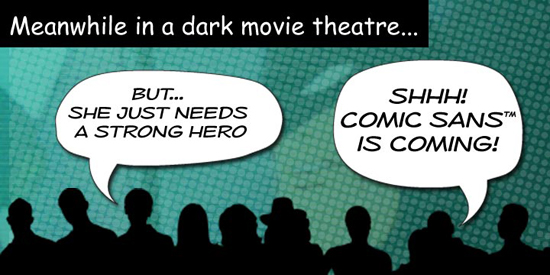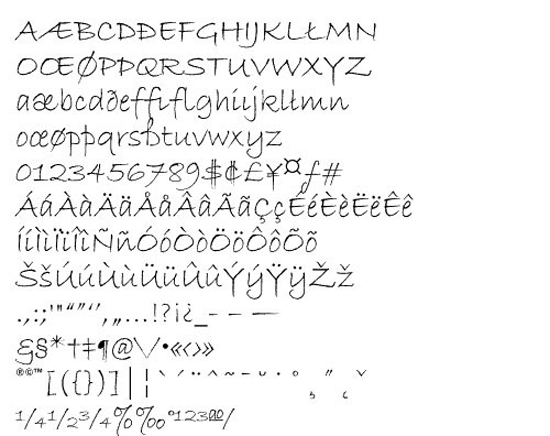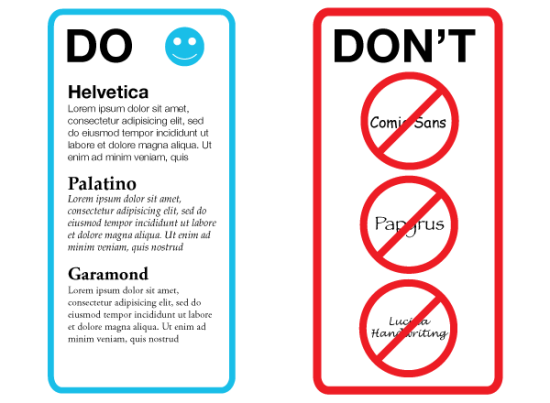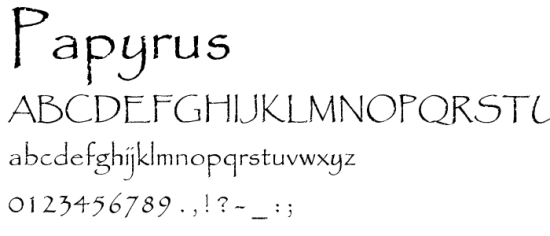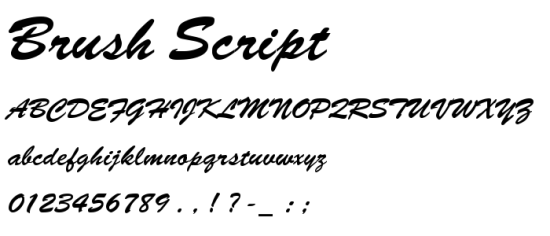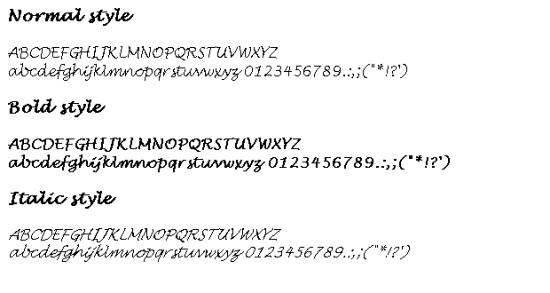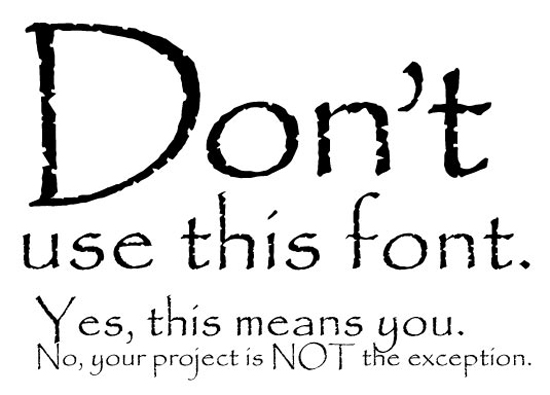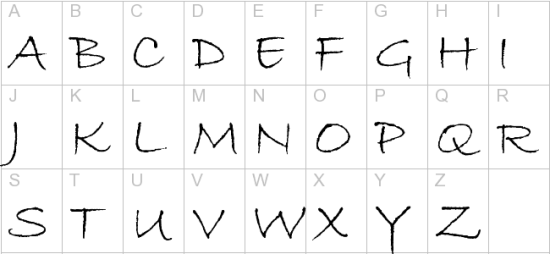
The Least Appropriate Fonts in Web Design
TweetFonts are a surprisingly tricky aspect of web design. This seemingly small choice has the power to make or break your website when it comes to giving off an aura of professionalism and quality. Unfortunately, many web designers fall victim to using popular fonts that have overstayed their welcome in the world of design.
This happens simply because they’re used to seeing them or because they buy into the belief that because others have used them so prolifically they should stick to “what works”. However, this couldn’t be farther from the truth. When designing your website be wary of these popular fonts that are actually some of the least appropriate ones for web design:
Comic Sans
Poor Comic Sans doesn’t stand a chance in the world of fonts and is largely referred to as the worst font of all time. Originally designed for comic books (like its name implies), it has become so hackneyed that the mere mention of it makes many designers shudder. Unless you’re a teacher or a child, Comic Sans should be avoided at all costs. The childish feel does nothing positive for websites.
Bradley Hand
The problem with Bradley Hand is that while it’s made to mimic actual handwriting, it still comes off looking like a font. This immediately retracts from the attempted authenticity of the font, making it one to avoid. You don’t want to make your viewers feel like you’re trying to put one over on them, which is exactly what Bradley Hand is doing.
Papyrus
Papyrus is a strange font that channels a very Egyptian feel that no business can effectively use, despite many widespread efforts. Also, people seem to be overdoing it to the max with this font, which just further solidifies that it should be avoided. Add in that it really isn’t that visually appealing or easily readable and you have a recipe for design disaster.
Brush Script
50 years ago this was the “it” font. But where Brush Script once served its users well, it now has fallen victim to the times and just looks outdated and old. If you have to go with a cursive-style font, pick one that has a bit more of a modern vibe to it.
Lucida Handwriting
When your goal is coming across as professional and high caliber, using handwriting fonts is not the way to go. And yet people still defer to Lucida Handwriting time and time again, despite the ironic fact that the more text typed in it, the more illegible it becomes.![]()
When choosing fonts for web design, don’t get trapped in the idea of using fonts that attempt to mimic handwriting – which is never really successful – or fonts that have become so overwhelmingly overused, that you are likely to see them on every website, menu, or flyer that you come across.
Stick with fonts that are easily readable and not a visual attack on the eyes of your audience.
While Comic Sans are blamed to be the one of the worst fonts there are still many people who uses it.